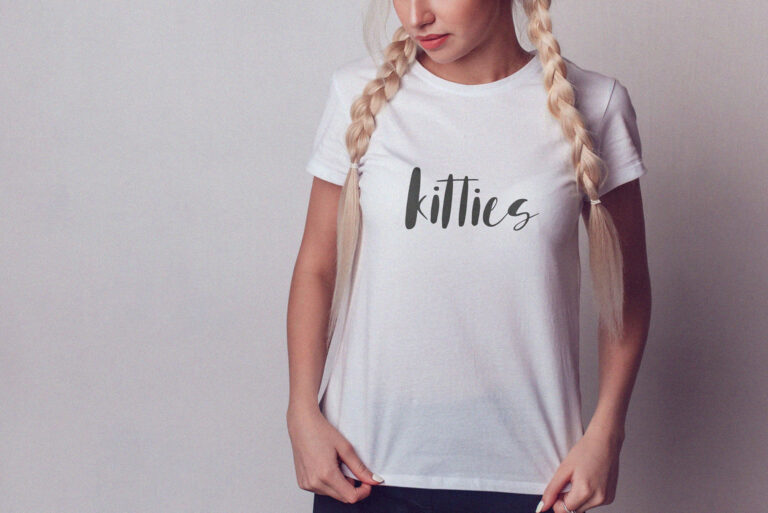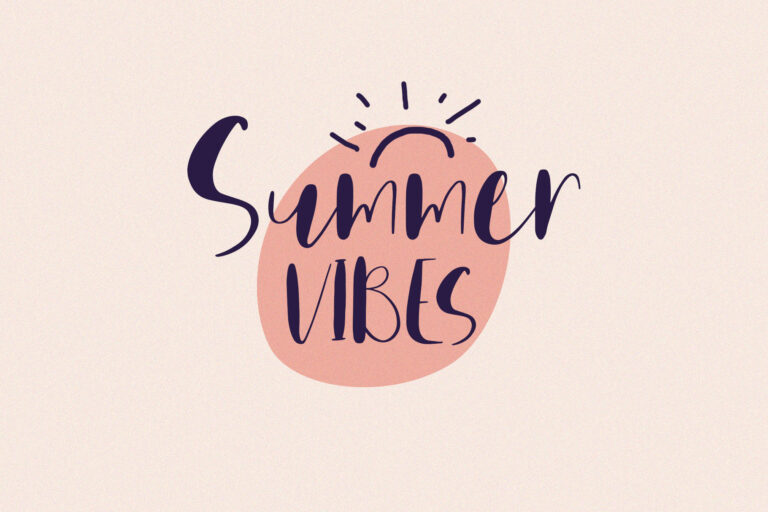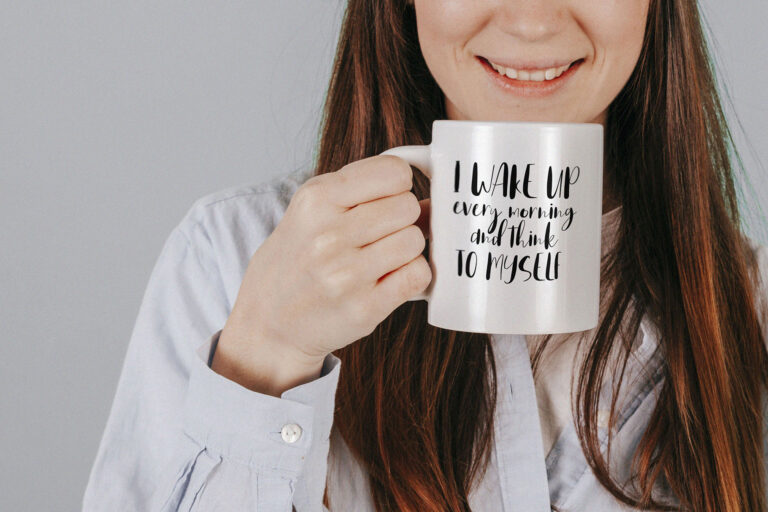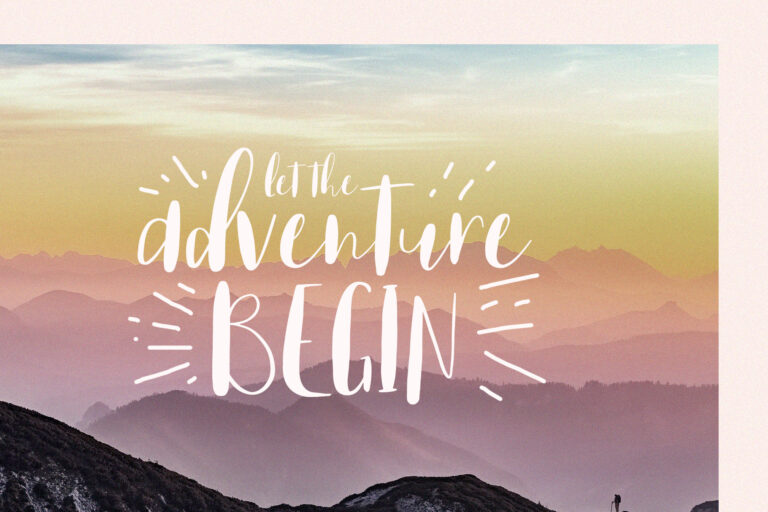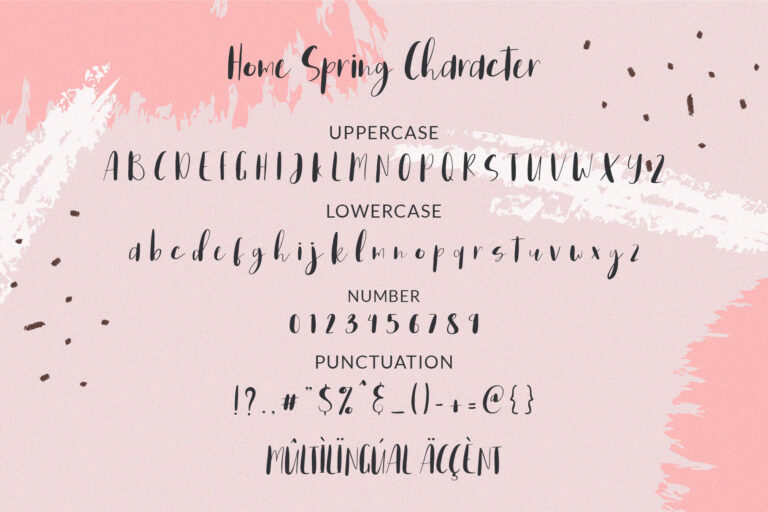
- Home Spring // Handwritten Font
Home Spring is a sweet, funny, cute handwritten font. Clean and soft, this font is the perfect fit for all of your crafty DIY projects, cricut, logos, branding, social media, etc.